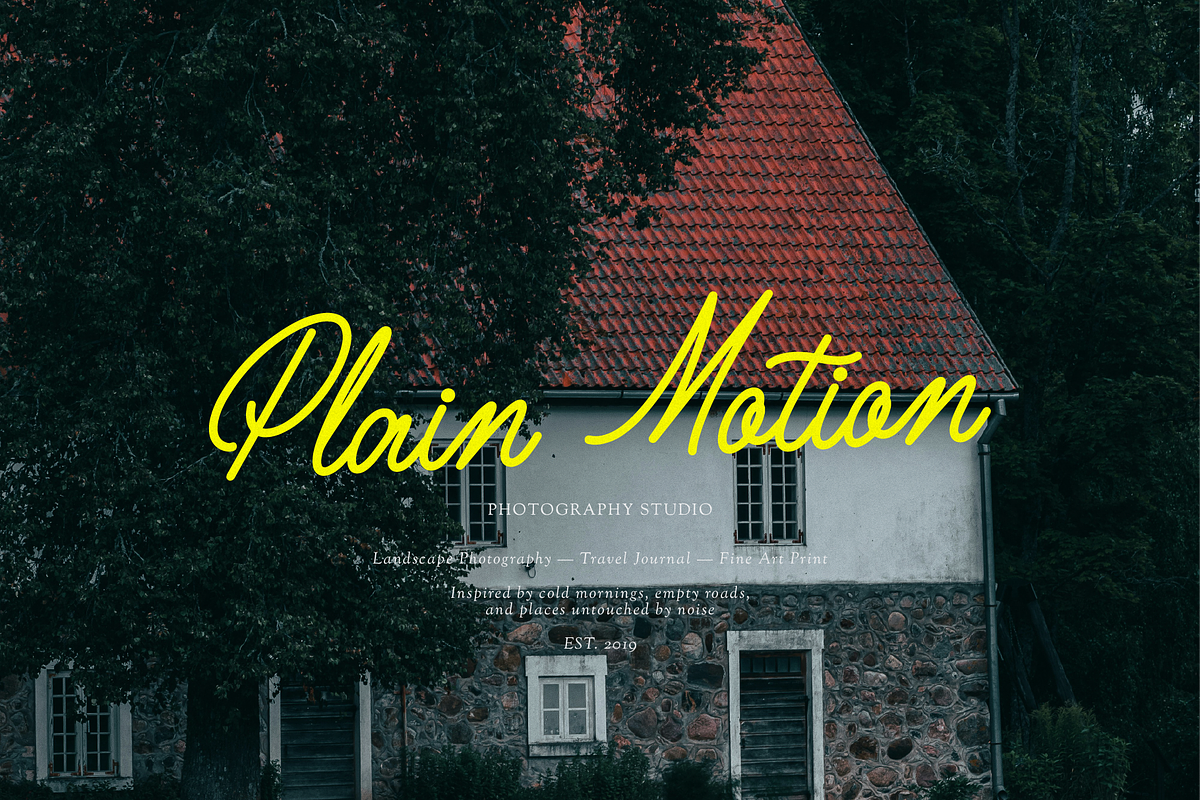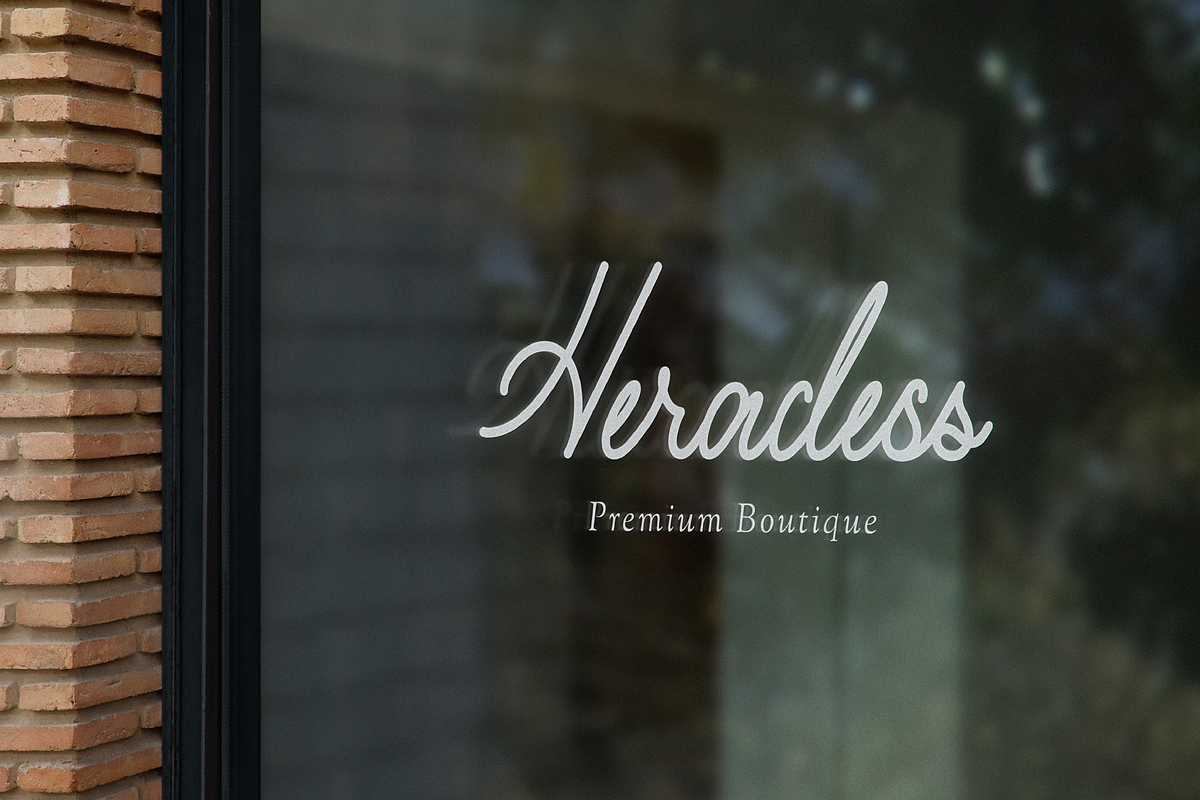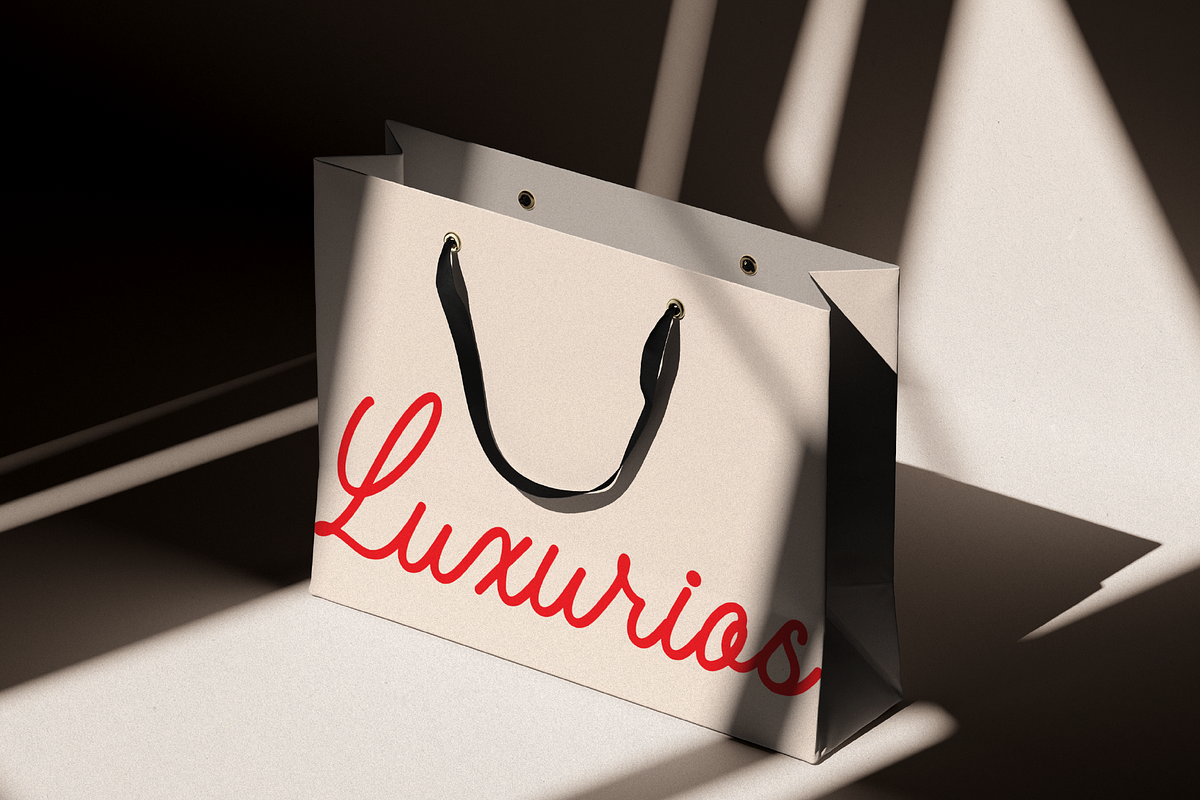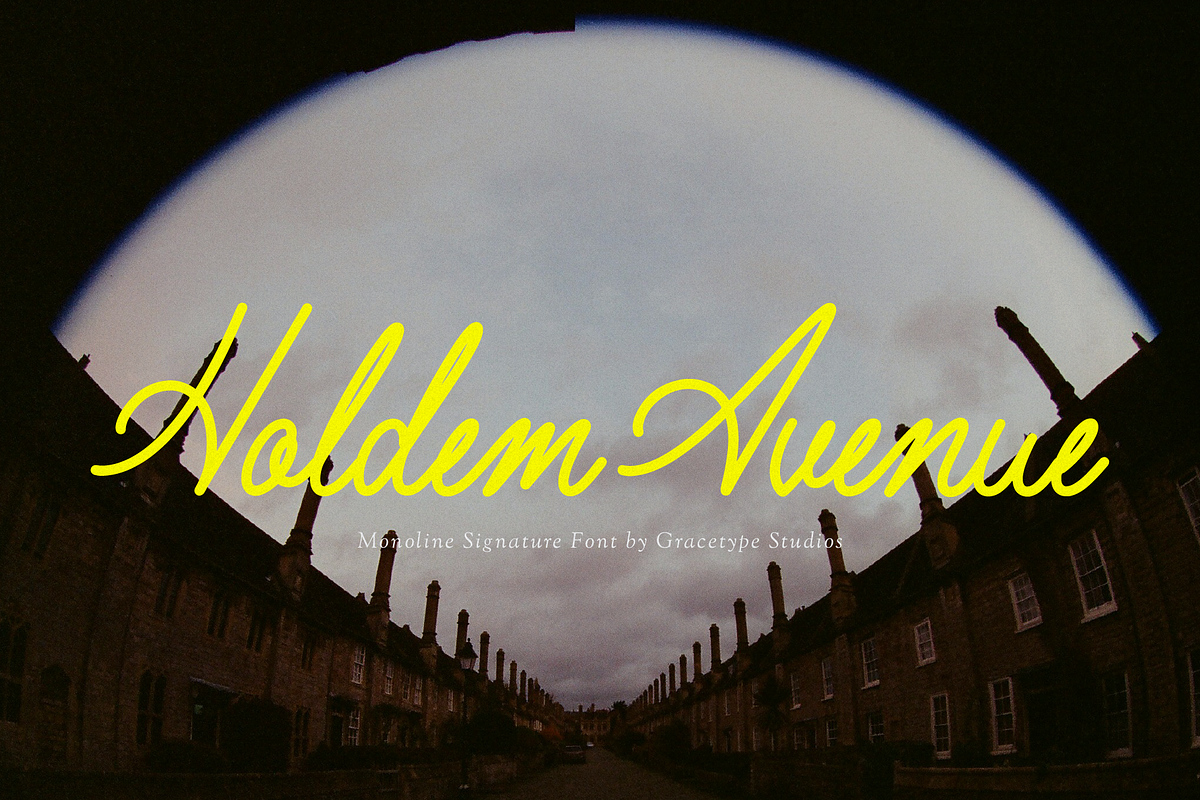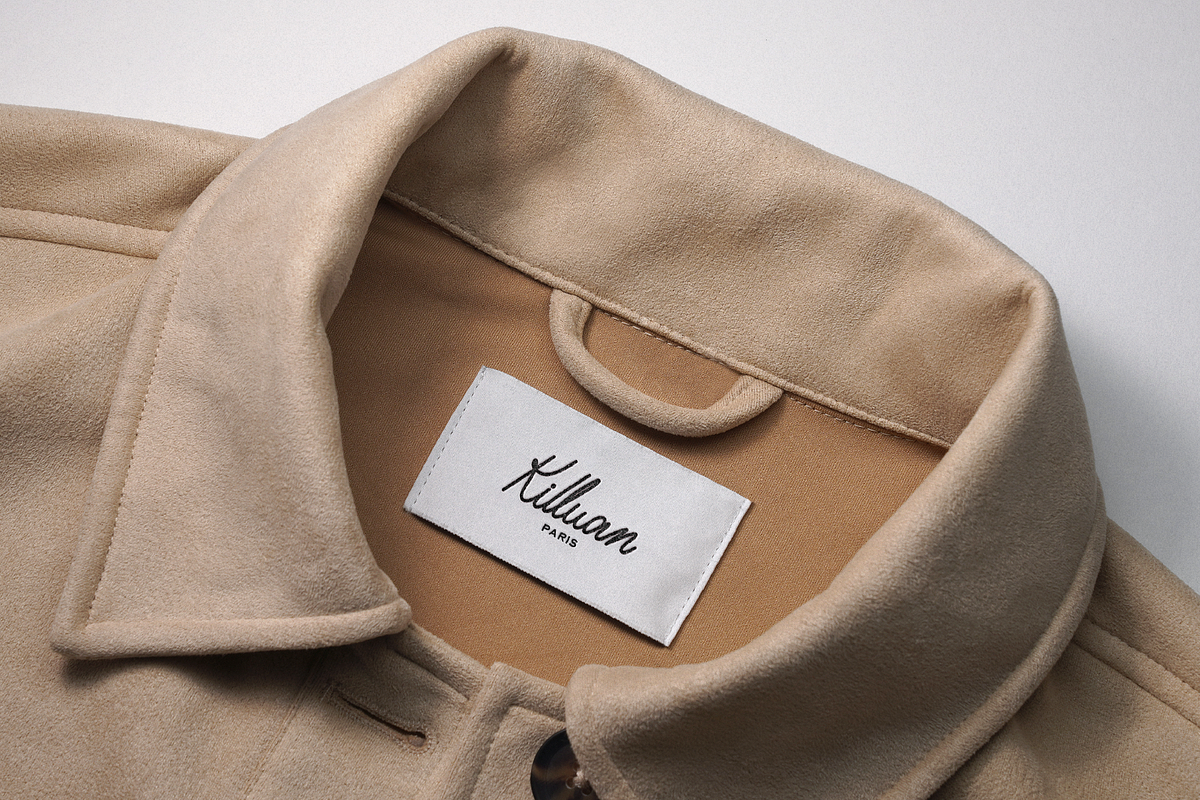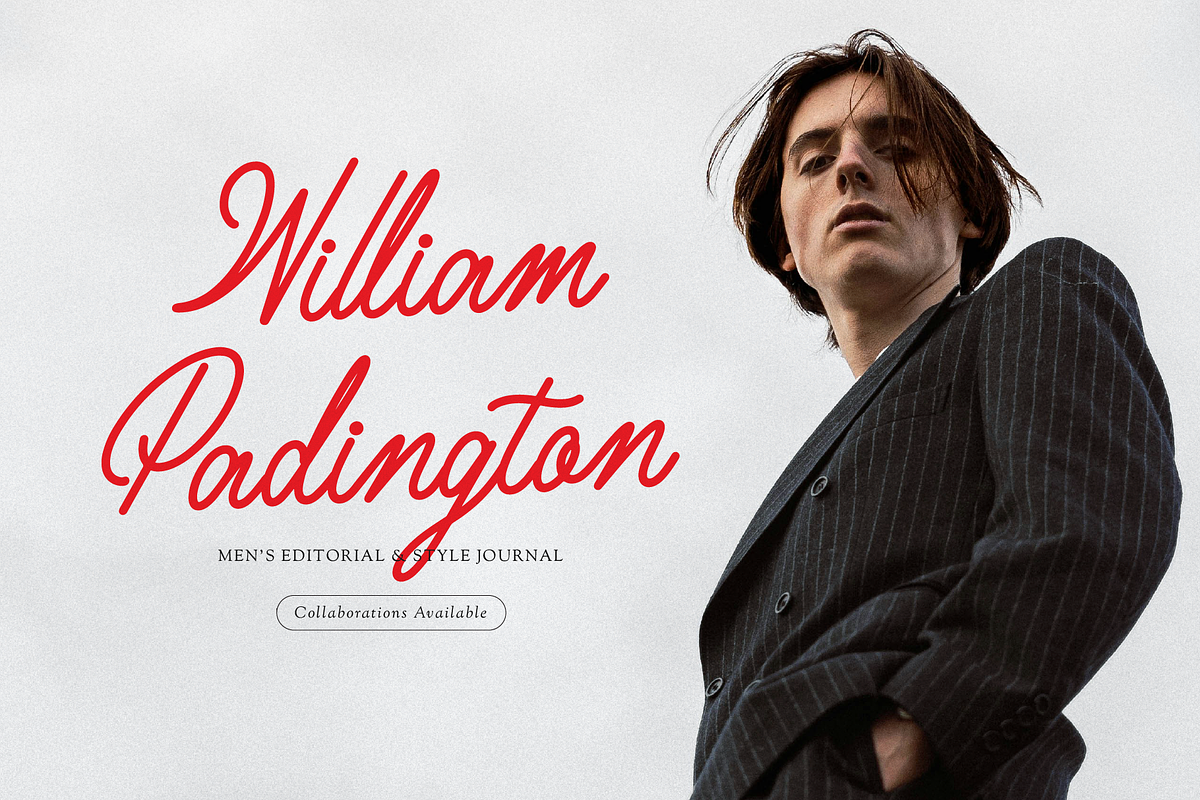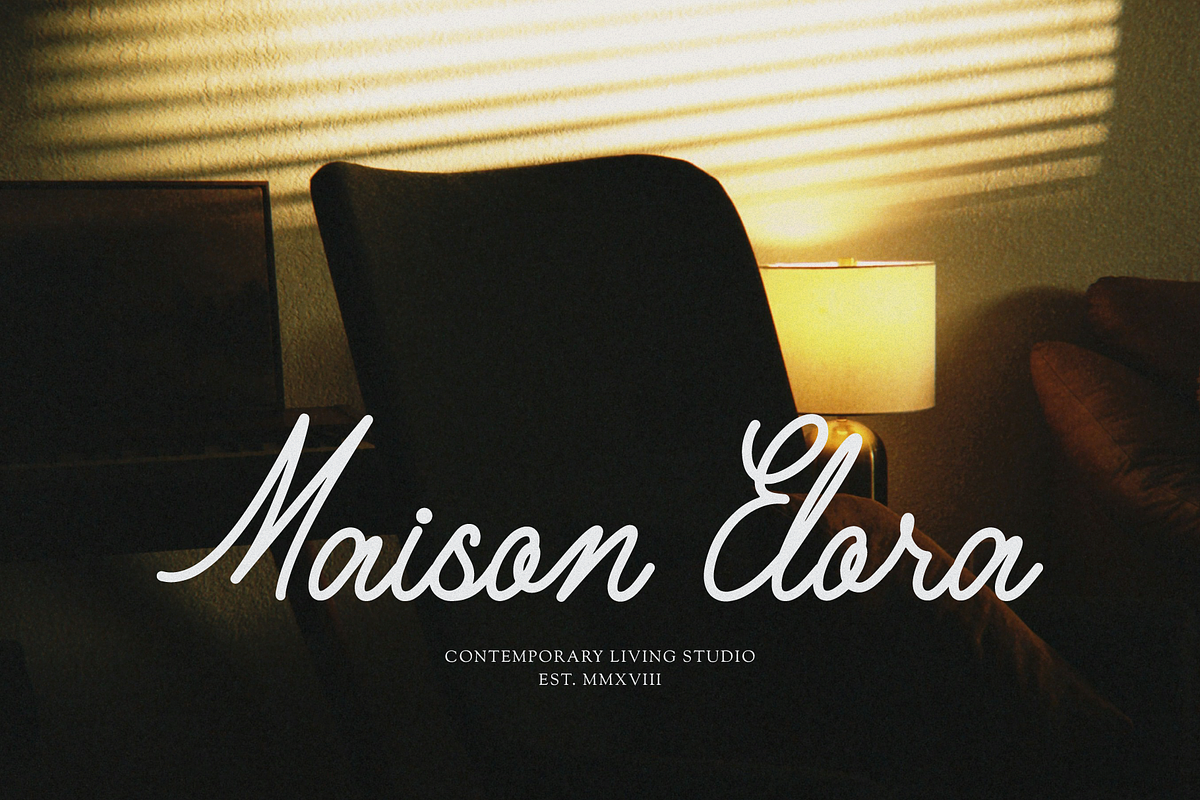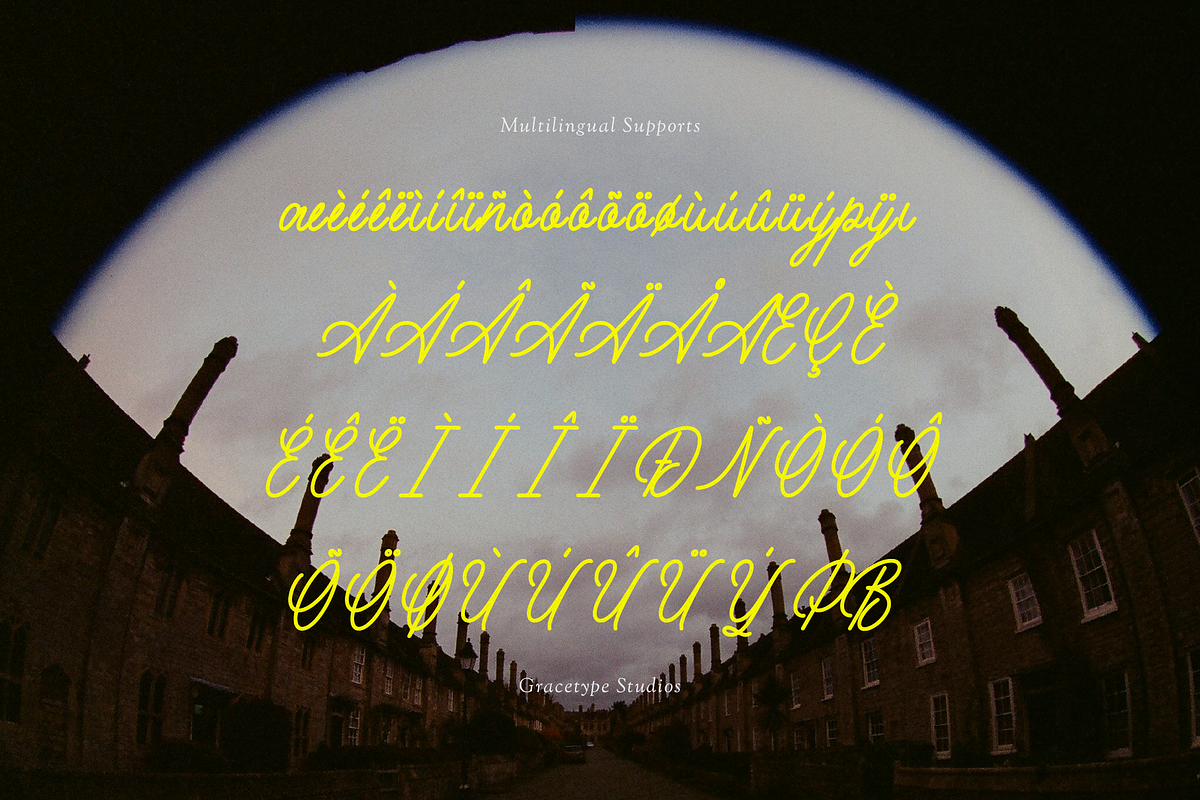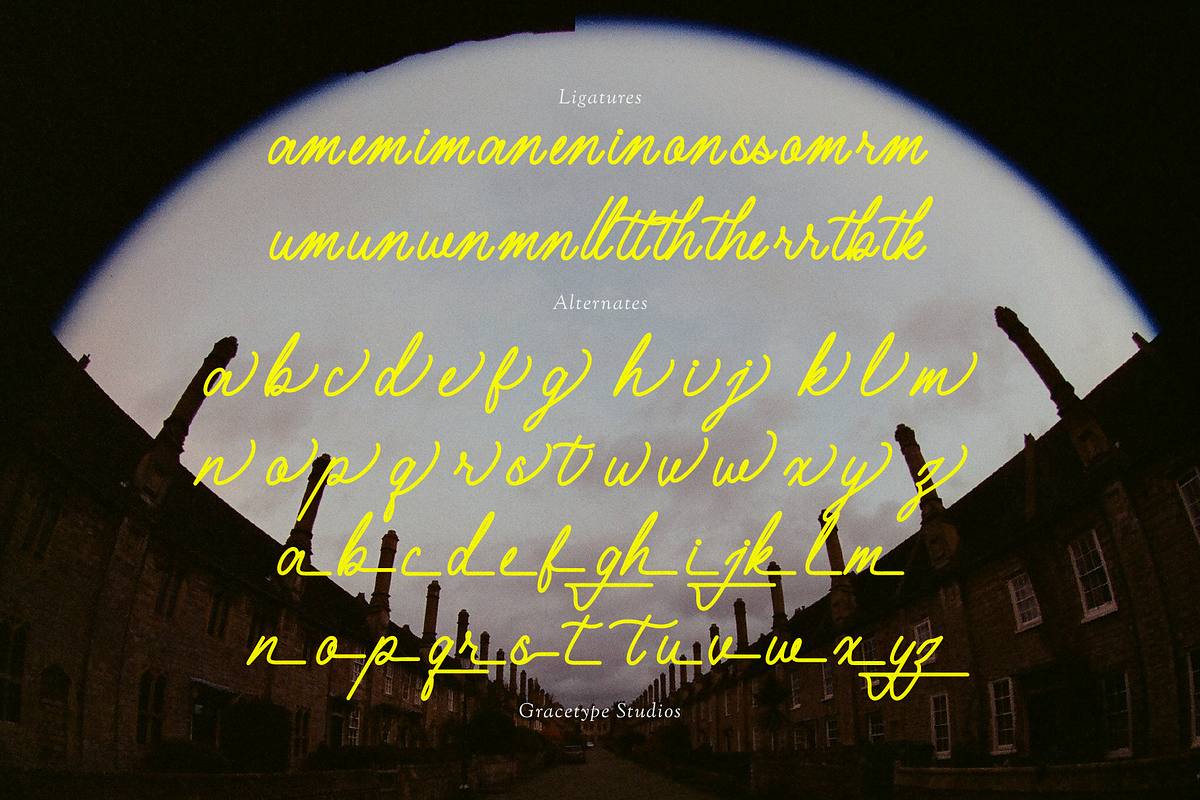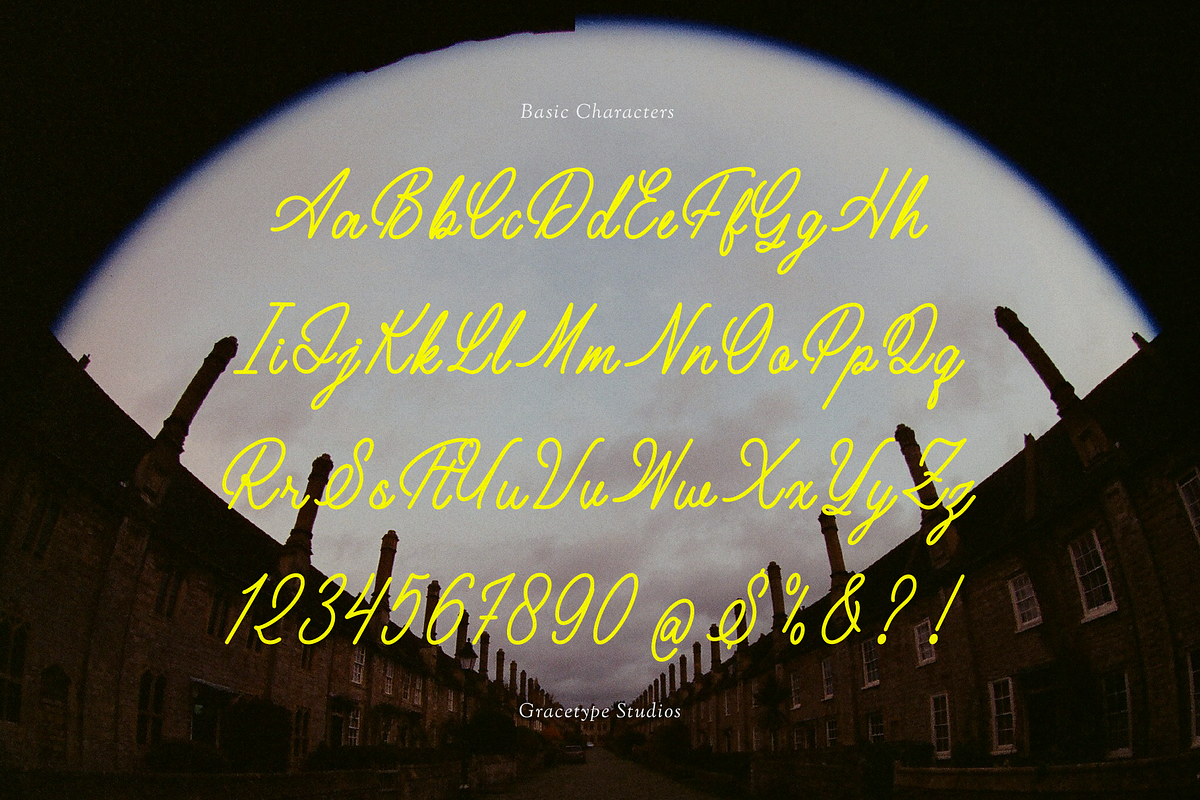
Holdem Avenue | Monoline Signature
Holdem Avenue | Monoline Signature, from Gracetypestudio, suitable for any projects such as: logos, branding projects, homeware designs, product packaging, mugs, quotes, posters, shopping bags, t-shirts, book covers, name card, invitation cards, greeting cards, label, photography, watermark, special events, and all your other lovely projects that need a script taste.
Standard glyphs
Alternate and Ligature
Fonts include multilingual support